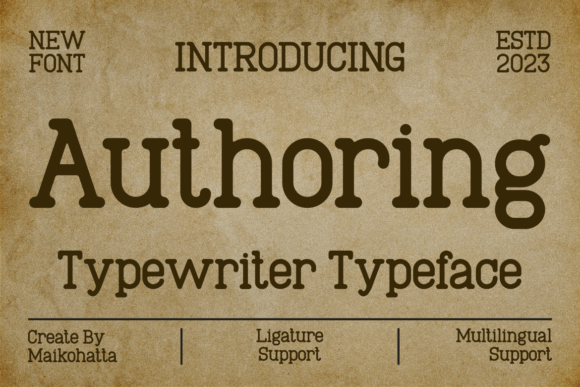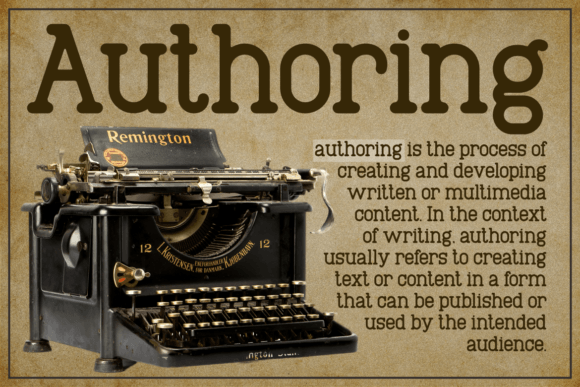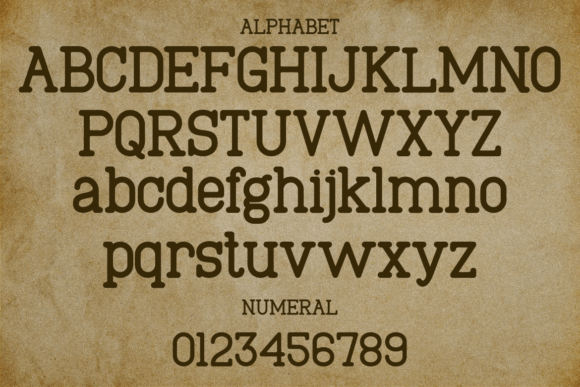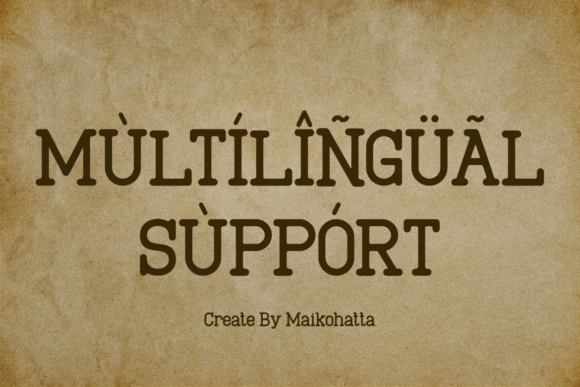
Authoring Font: A Vintage Typewriter Serif for Retro Designs & Branding
About the Authoring Font
Get ready to be inspired by Authoring Font, a fresh and dynamic typeface for modern creators. Authoring combines traditional serif elements with the aesthetics of a typewriter, creating a captivating font that imparts a classic feel to any design it’s used in. It produces a unique appearance and is often employed to achieve a retro or vintage impression.
Authoring Font excels in headlines, short paragraphs, and branding applications where its vintage charm adds character. It’s ideal for projects evoking nostalgia, such as book covers, posters promoting retro events, or logos for businesses aiming for a classic aesthetic. However, its unique letterforms and relatively wide spacing make it less suitable for body text or user interfaces requiring high readability.
The font’s personality is decidedly bold and vintage, yet refined. Its slightly quirky character makes it ideal for brands seeking a sophisticated yet approachable image.
Pairing Authoring with a clean sans-serif like Helvetica Neue for body text provides excellent contrast and readability. For a more playful feel, consider pairing it with a rounded geometric sans-serif. A delicate script font could be used for accents, adding a touch of elegance.
Authoring Font Example